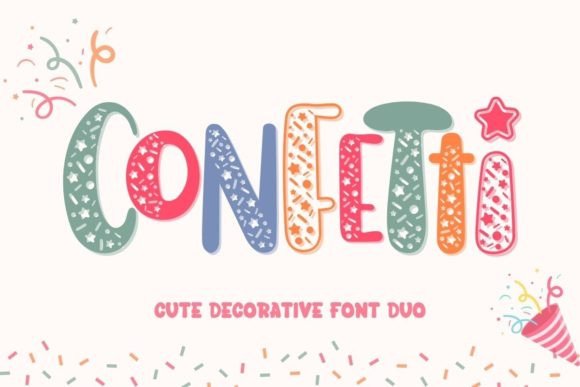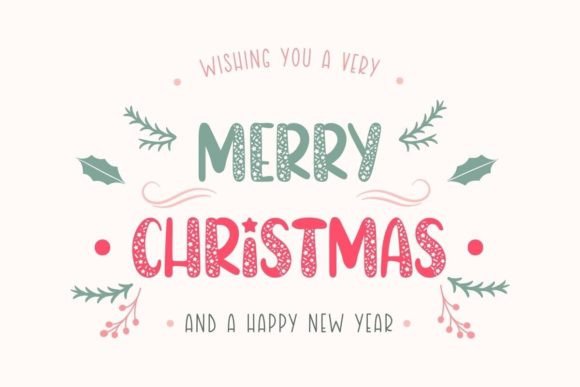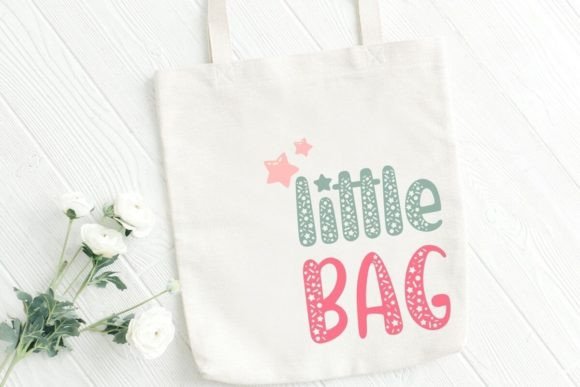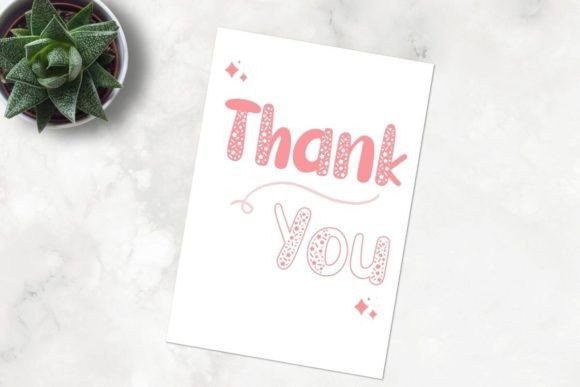
Confetti Font: A Cute Decorative Display Font for DIY & Cricut Projects
About the Confetti Font
Step up your design game with Confetti Font, a font that exudes confidence and style. Confetti is a lovely decorative Duo Font. This font uses confetti combined with chubby handwritten letters to make it look more interesting. You can use it to create Christmas cards. wedding invitation cards, decorate bags, mugs, beautiful stationery, and post on social media and so much more!
Confetti’s playful, celebratory style is ideal for projects requiring a lighthearted and festive touch. It excels in short, impactful headings, packaging design for celebratory products (like sweets or party supplies), and social media graphics. Consider it for invitations, short announcements, or eye-catching logos where a hand-drawn, slightly imperfect aesthetic adds charm. However, avoid using it for body text or long form content; its decorative nature reduces readability in larger blocks of copy. It’s also unsuitable for UI elements where clarity and legibility are paramount.
To create visual balance, pair Confetti with a clean sans-serif font like Open Sans or Lato for body copy or supporting text. For a more sophisticated feel, consider pairing it with a classic serif font like Garamond or Playfair Display; the contrast will enhance Confetti’s whimsical charm. Avoid pairing it with other highly decorative fonts to prevent visual clutter.
Confetti’s overall personality is cheerful and informal, making it a strong choice for brands targeting a young, fun-loving demographic. Its slightly irregular forms contribute to an authentic, hand-crafted feel.